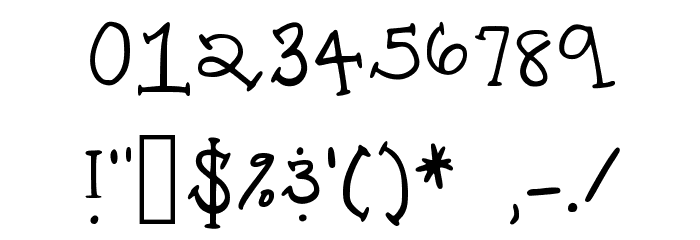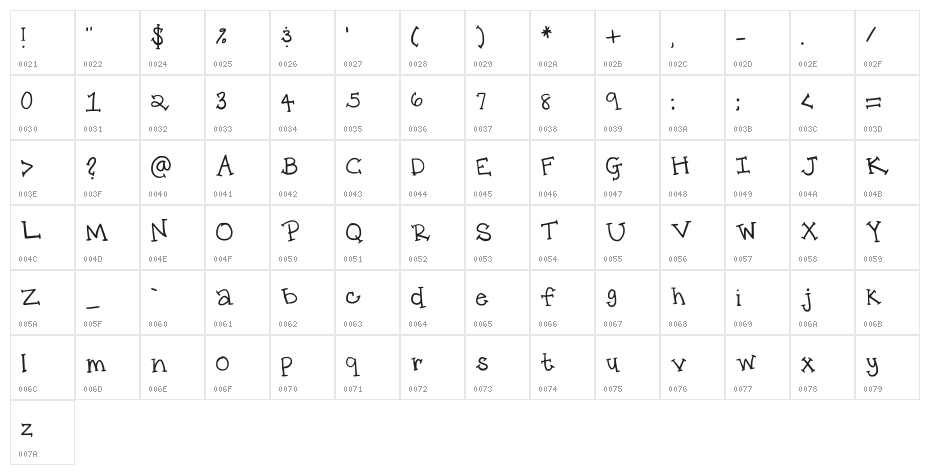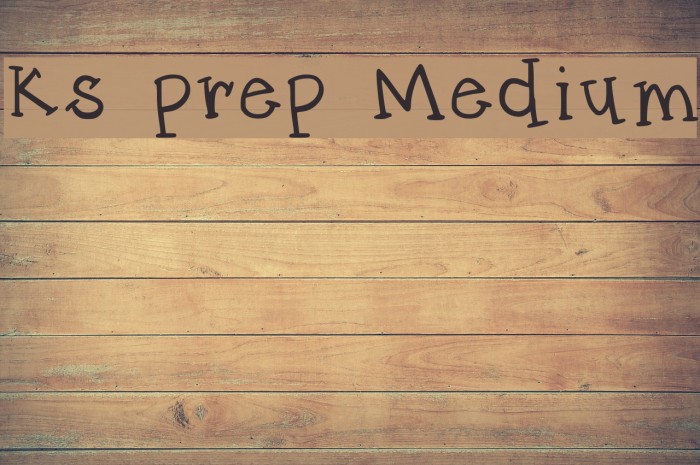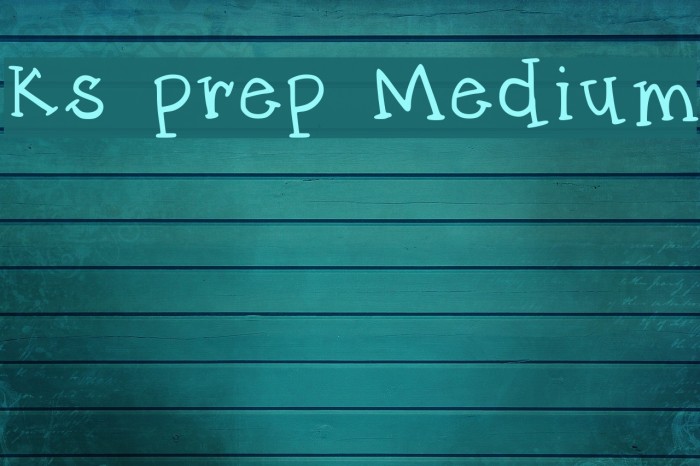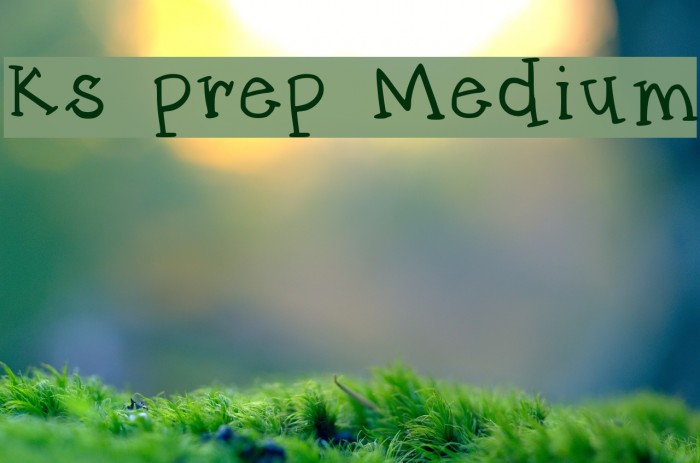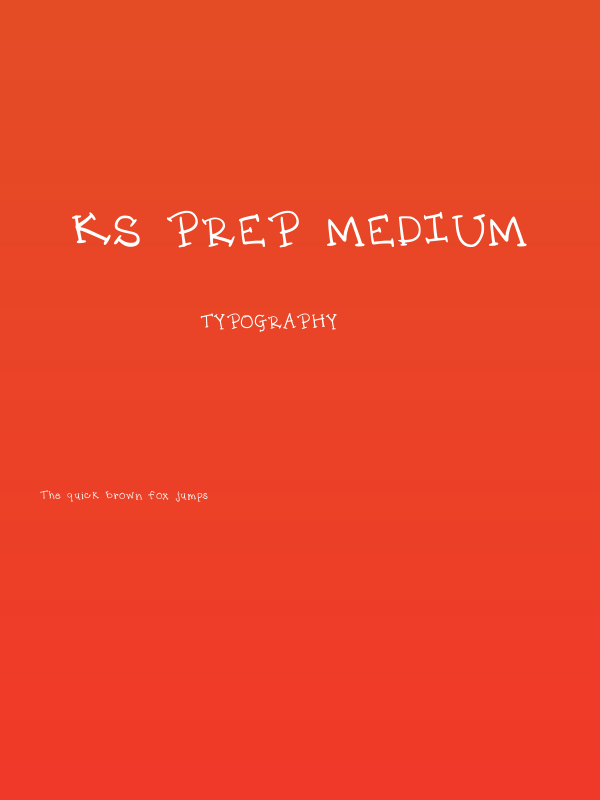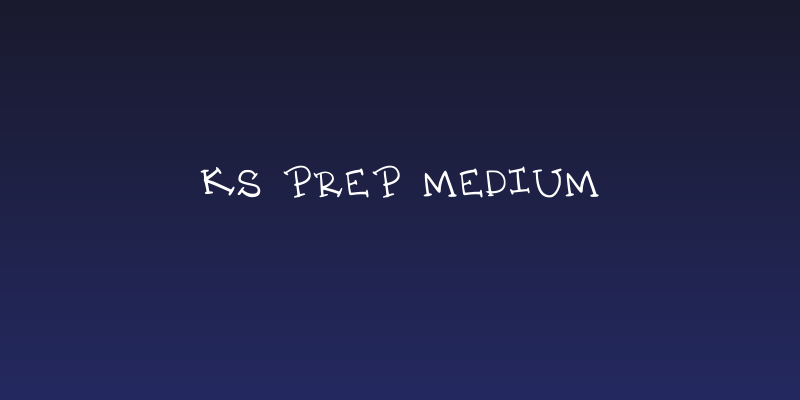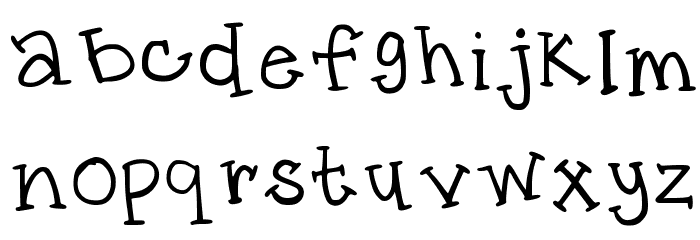
ks prep Medium Font
ks prep Medium Description
This font features a playful and whimsical design, characterized by its irregular and slightly tilted letterforms. The strokes are uneven, giving it a hand-drawn appearance that adds a sense of fun and creativity. The uppercase and lowercase letters maintain a consistent style, with quirky curves and angles that make each character unique. The numerals and special characters follow the same playful aesthetic, ensuring a cohesive look across all text. This font's distinctive style makes it ideal for projects that require a touch of personality and charm.
Overall StyleWhimsical
Proposed ProjectsIdeal for children's books, greeting cards, playful branding, and creative posters.